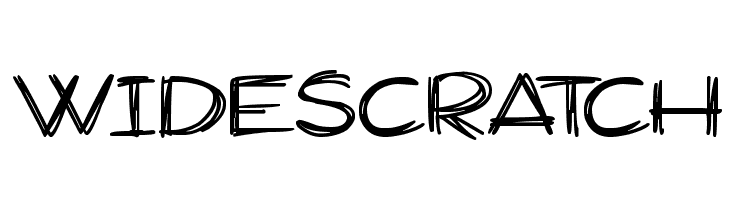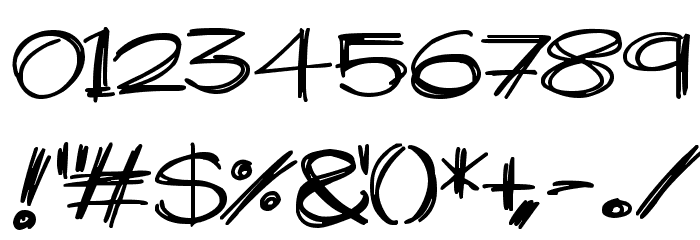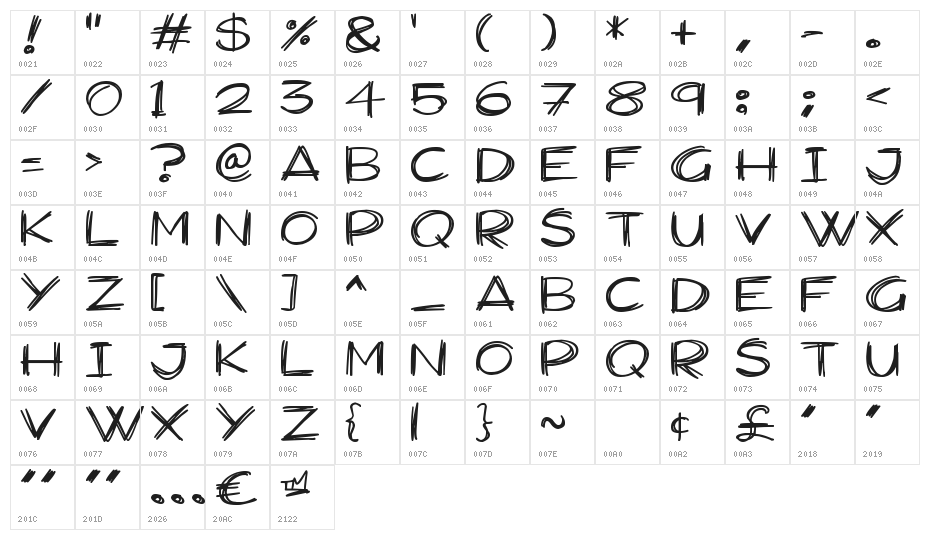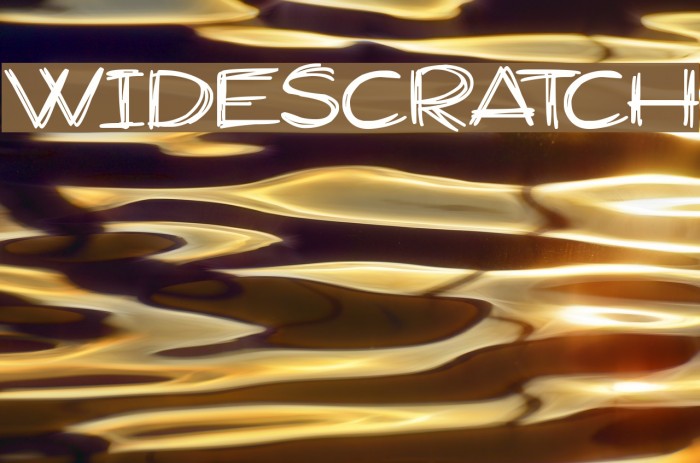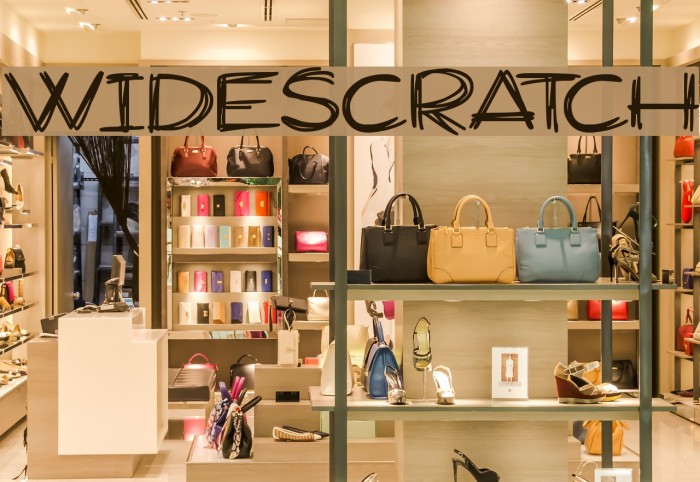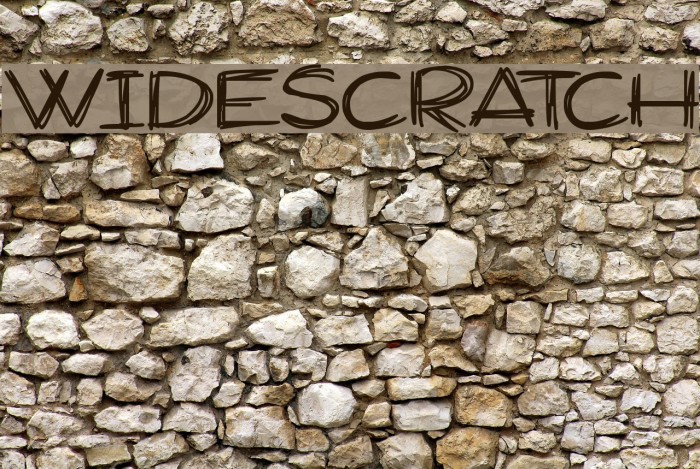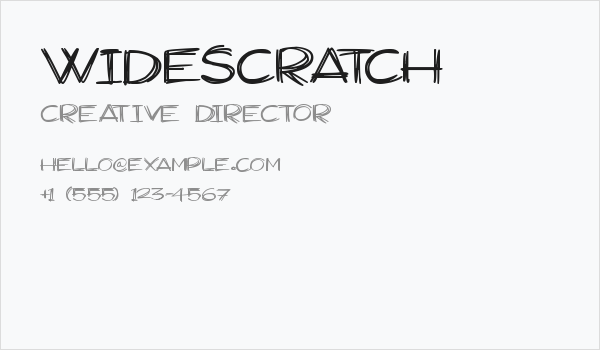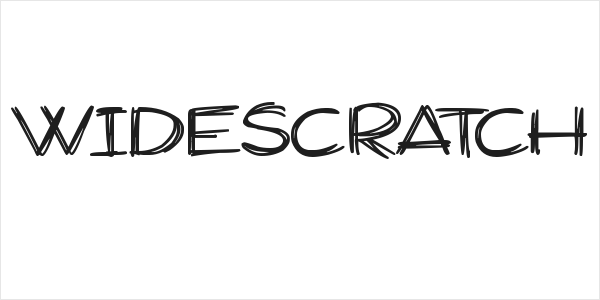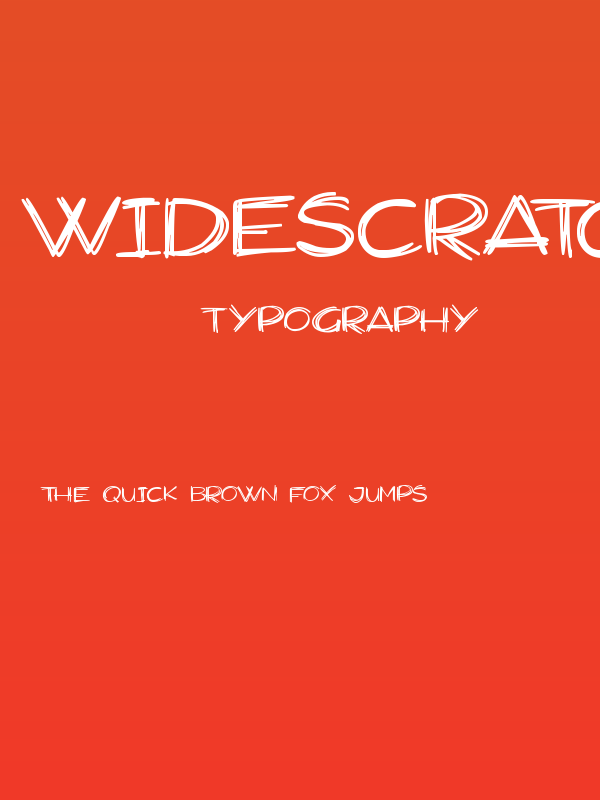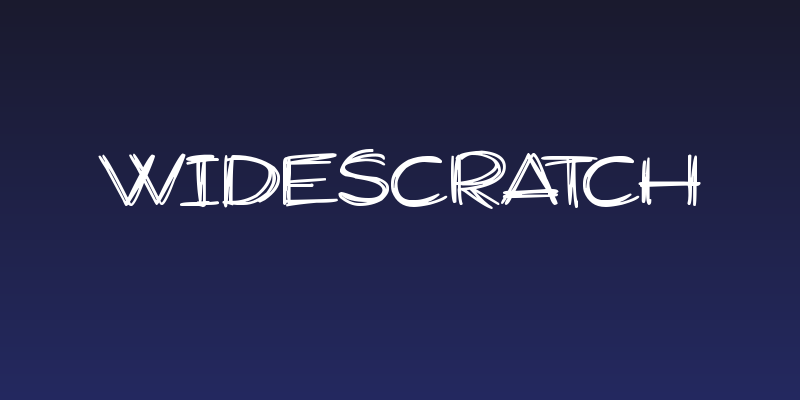
Widescratch Font
Widescratch Description
This font features a bold, dynamic style with a hand-drawn appearance, characterized by irregular, scratchy lines that give it a raw and energetic feel. The uppercase and lowercase letters maintain a consistent style, with exaggerated strokes and a playful, artistic flair. Numbers and special characters follow the same aesthetic, ensuring a cohesive look across all glyphs. The font's unique design makes it stand out, offering a sense of movement and creativity that is both eye-catching and memorable.
| Use Case | Logos, Posters, Headlines |
| Proposed Projects | Ideal for creative projects such as posters, album covers, and branding that require a bold, artistic touch. |